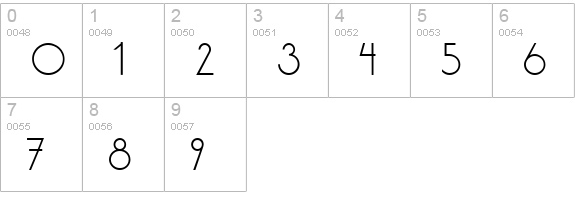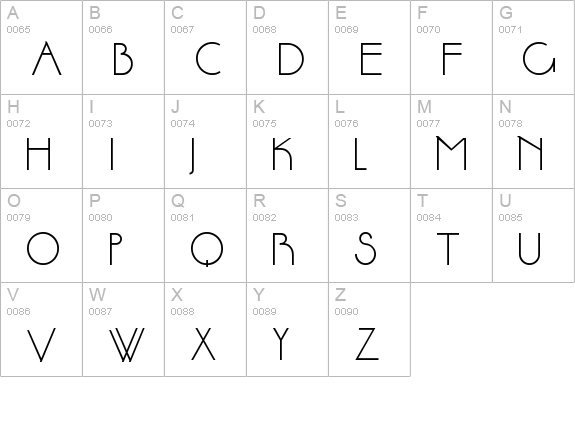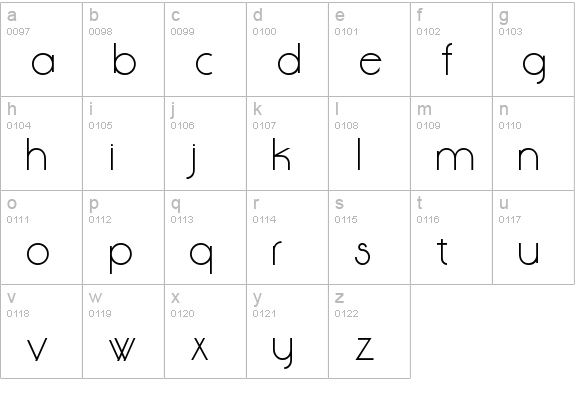
Anson Normal Font Details
Anson Normal is the standard, neutral variant in the Anson typeface family \xE2\x80\x94 well suited to general body text, paragraphs, and standard typographic work.
Anson Normal font is a timeless and versatile typeface that exudes sophistication and elegance. Its clean lines and balanced proportions make it perfect for a wide range of design projects, from branding to editorial design. With its classic yet modern aesthetic, Anson Normal is sure to make your text stand out and leave a lasting impression. Best of all, Anson Normal font is completely free to download at FontsMarket.com. This means you can easily access this high-quality typeface without any cost, making it a valuable resource for designers, students, and anyone looking to elevate their typography game. Don't miss out on the opportunity to enhance your projects with the beautiful and versatile Anson Normal font - download it today and take your designs to the next level!